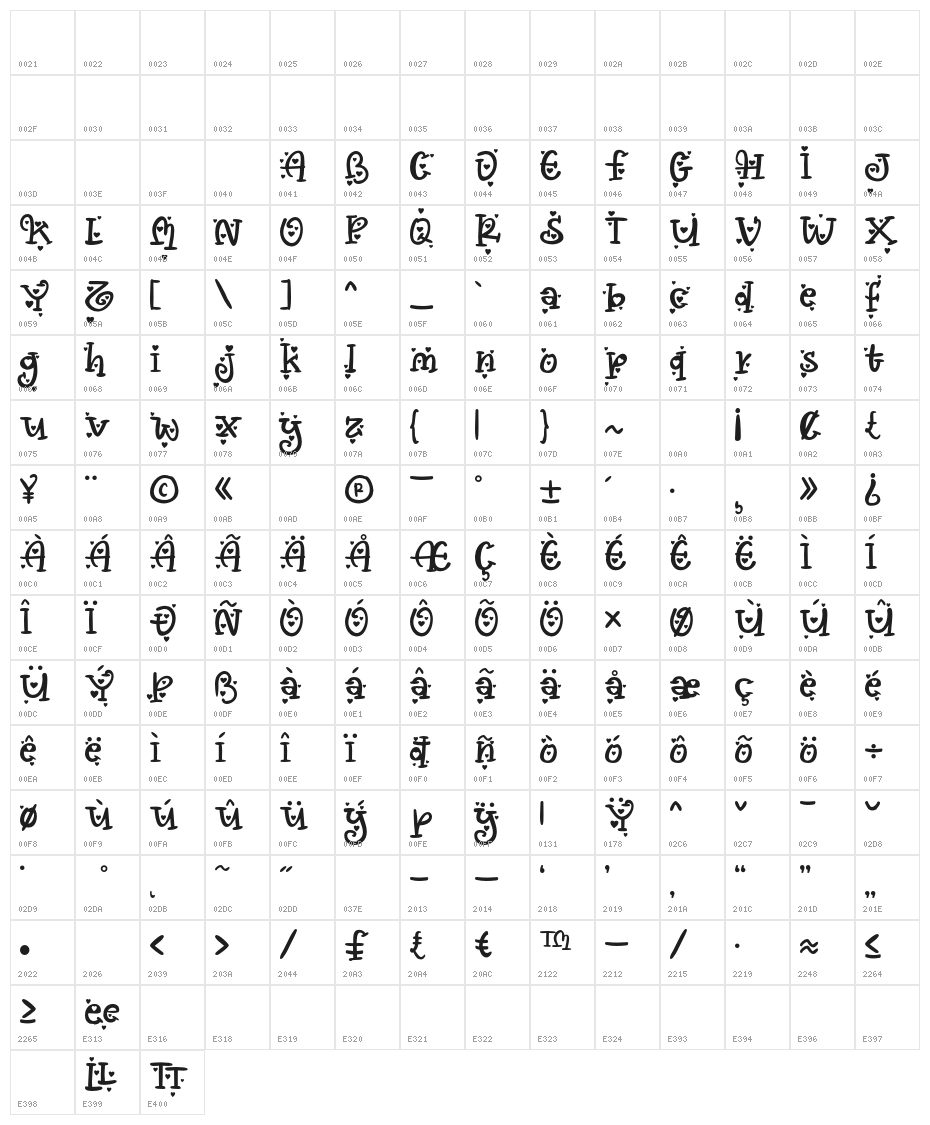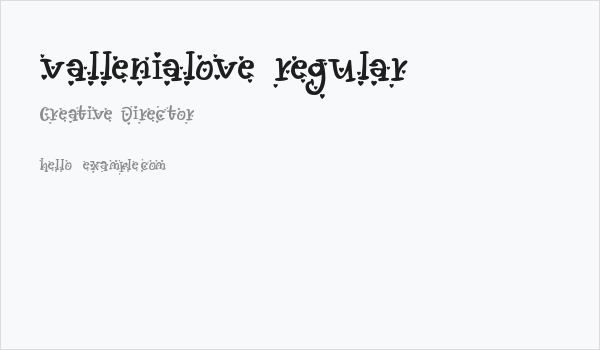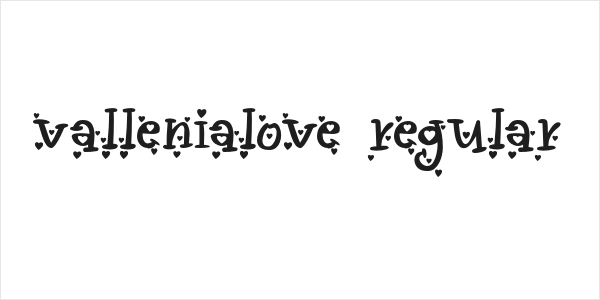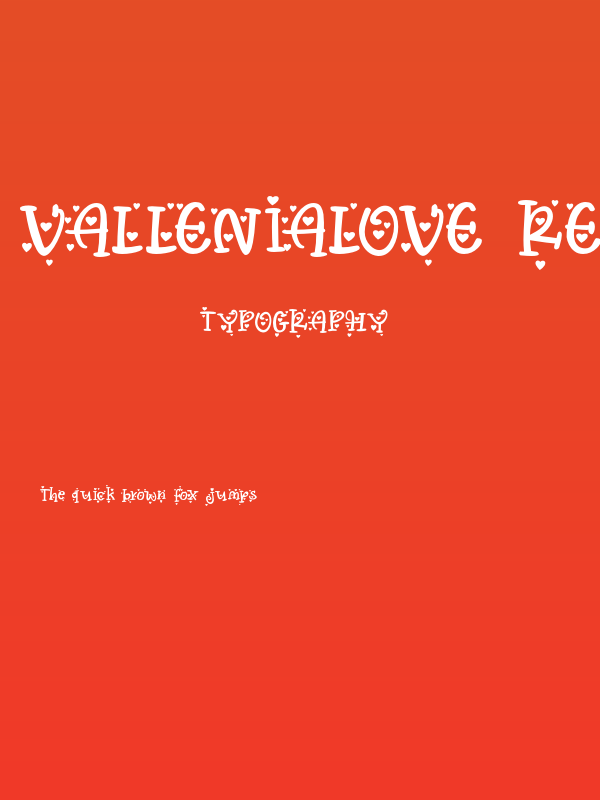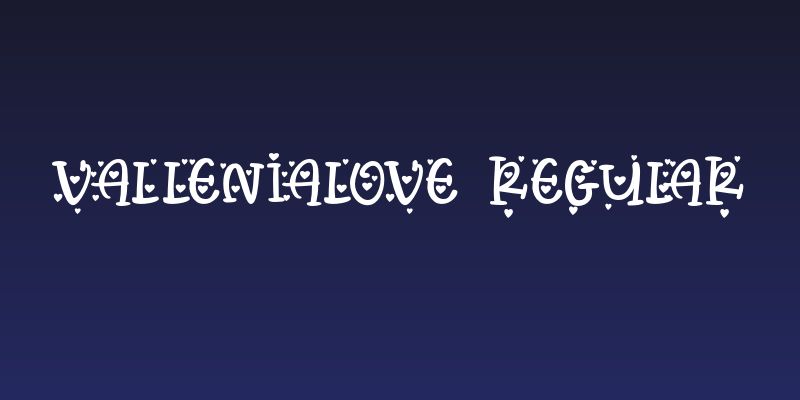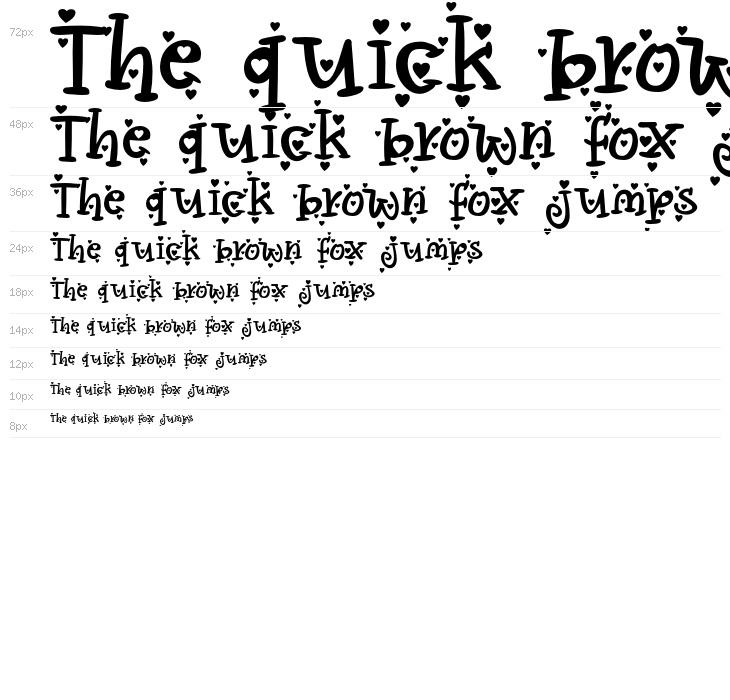
vallenialove-regular Font
vallenialove-regular Description
This whimsical and playful font features heart-shaped embellishments integrated into each character, creating a charming and romantic aesthetic. The letters are bold and rounded, with a consistent stroke width that adds to the font's friendly and approachable feel. The uppercase and lowercase letters maintain a cohesive style, with unique flourishes that make each character stand out. This font is perfect for projects that require a touch of love and creativity, such as Valentine's Day cards, wedding invitations, or any design that aims to convey warmth and affection.
| Proposed Projects | Ideal for Valentine's Day cards, wedding invitations, love-themed posters, and playful branding. |